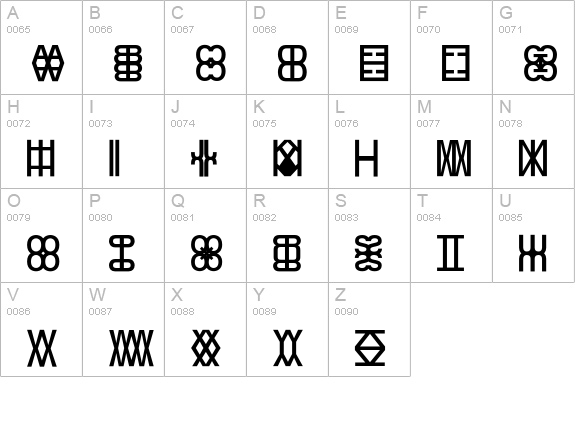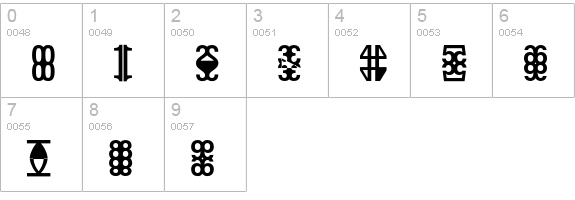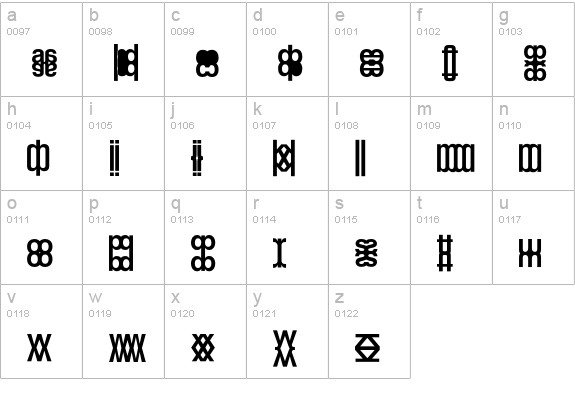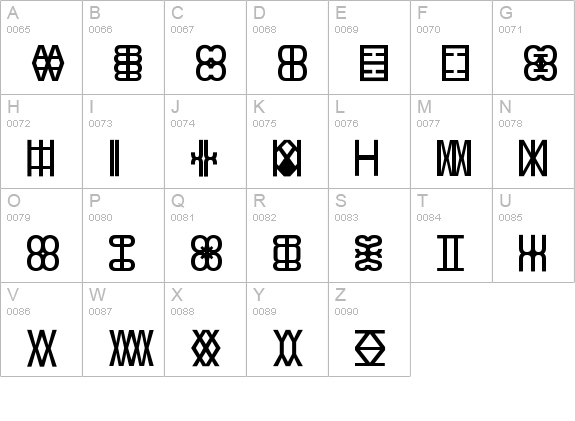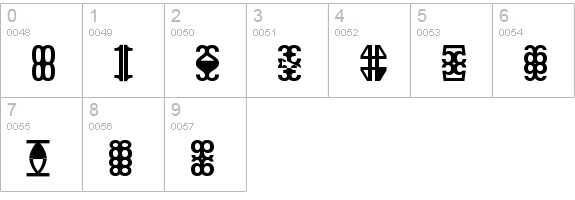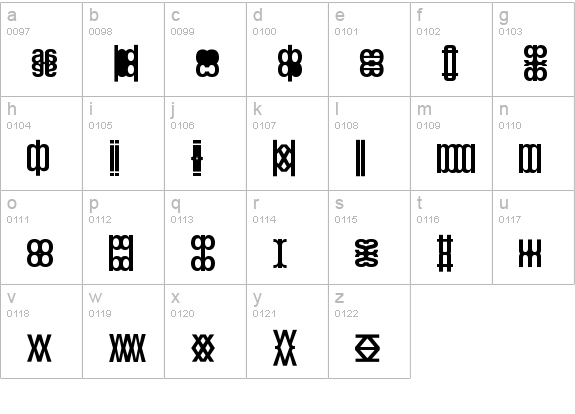
Kwarthel Font Details
Kwarthel font is a versatile and elegant typeface that combines modern aesthetics with a classic touch. Its sleek lines and balanced proportions make it perfect for a wide range of design projects, from branding to editorial design. The unique letterforms of Kwarthel font exude sophistication and style, making any text look polished and professional. What sets Kwarthel font apart is not just its visual appeal, but also its accessibility. This high-quality font is available for free download at FontsMarket.com, allowing designers, creatives, and enthusiasts alike to easily incorporate it into their work without any cost. Whether you're working on a personal project or a commercial endeavor, Kwarthel font is a fantastic choice that will elevate your designs and make them stand out. Embrace the beauty and versatility of Kwarthel font today by downloading it for free at FontsMarket.com. Let your creativity shine with this exquisite typeface that is sure to make a lasting impression.